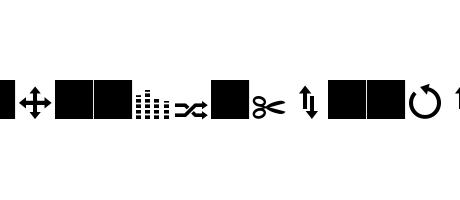
Heydings Controls
By Heydon Pickering
Heydings Controls: This isn't a font in the traditional sense; it's a collection of pictorial symbols designed for user interface elements. The glyphs resemble small, bold black icons depicting actions like resizing, merging, audio editing, cutting, vertical flipping, and undo. They communicate function concisely, ideal for minimalist interfaces.